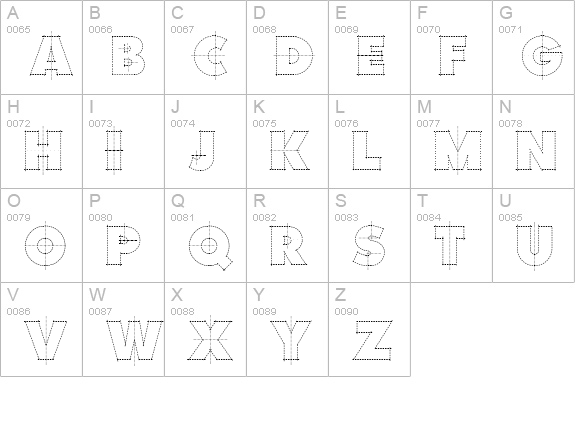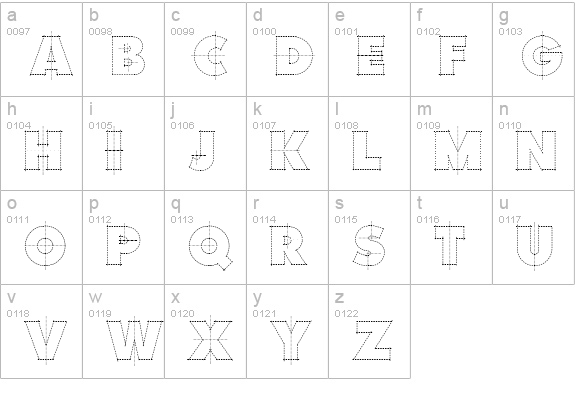
Constructivo Demo Font Details
Constructivo Demo is a modern and stylish font that exudes a sense of creativity and innovation. With its clean lines and geometric shapes, this font is perfect for a variety of design projects, from logos to posters to websites. Its sleek and contemporary aesthetic makes it a versatile choice for both digital and print applications. One of the best things about Constructivo Demo is that it is completely free to download. You can easily access this font at FontsMarket.com, where you can quickly and conveniently add it to your font library. Whether you are a graphic designer, a web developer, or simply someone looking to add a touch of sophistication to your projects, Constructivo Demo is sure to impress with its unique and eye-catching style. Don't miss out on this fantastic opportunity to enhance your designs with the distinctive look of Constructivo Demo. Download it for free today at FontsMarket.com and start creating stunning visuals that will stand out from the crowd.